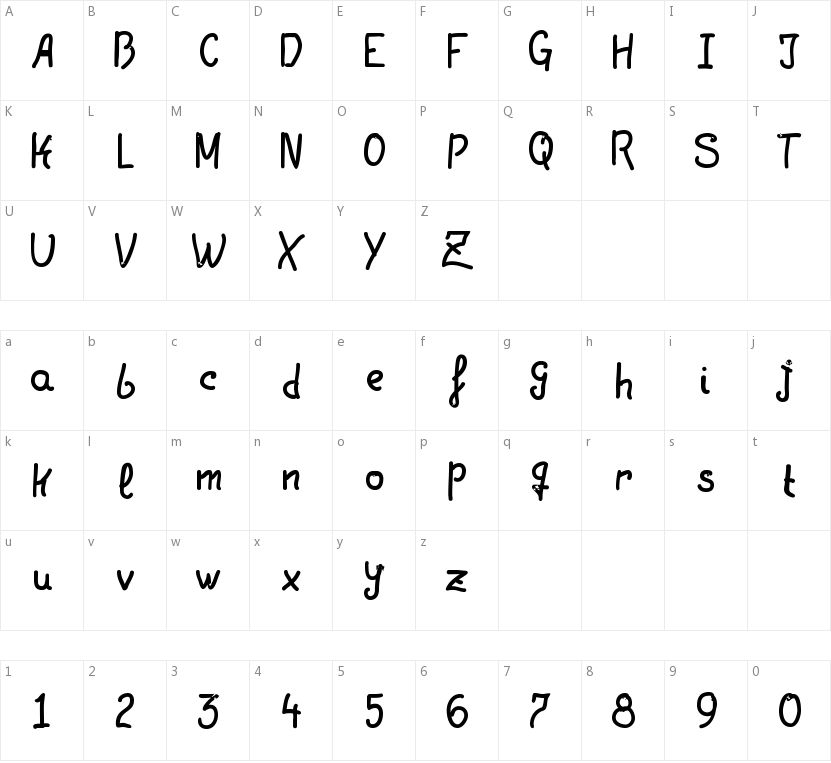
LGF Patuko
LGF Patuko Font is a modern, beautiful typeface designed with a mix of traditional and modern elements. It has simple, smooth lines and clear shapes, making the font perform well in a variety of situations such as body copy and headlines. The designers of the LGF Patuko font paid attention to detail and beauty, allowing each letter to stand alone and in harmony with the others. In addition, the font also has good legibility and readability, making the text clearer and easier to understand when reading. In conclusion, LGF Patuko font is an excellent font suitable for various design and typography occasions, and it is the best choice for designers and typographers.
LGF Patuko is a very good handwriting art font, with a good visual sense, suitable for cultural propaganda design, commercial brand advertising and product packaging design and personalized text typesetting and other more scenes.